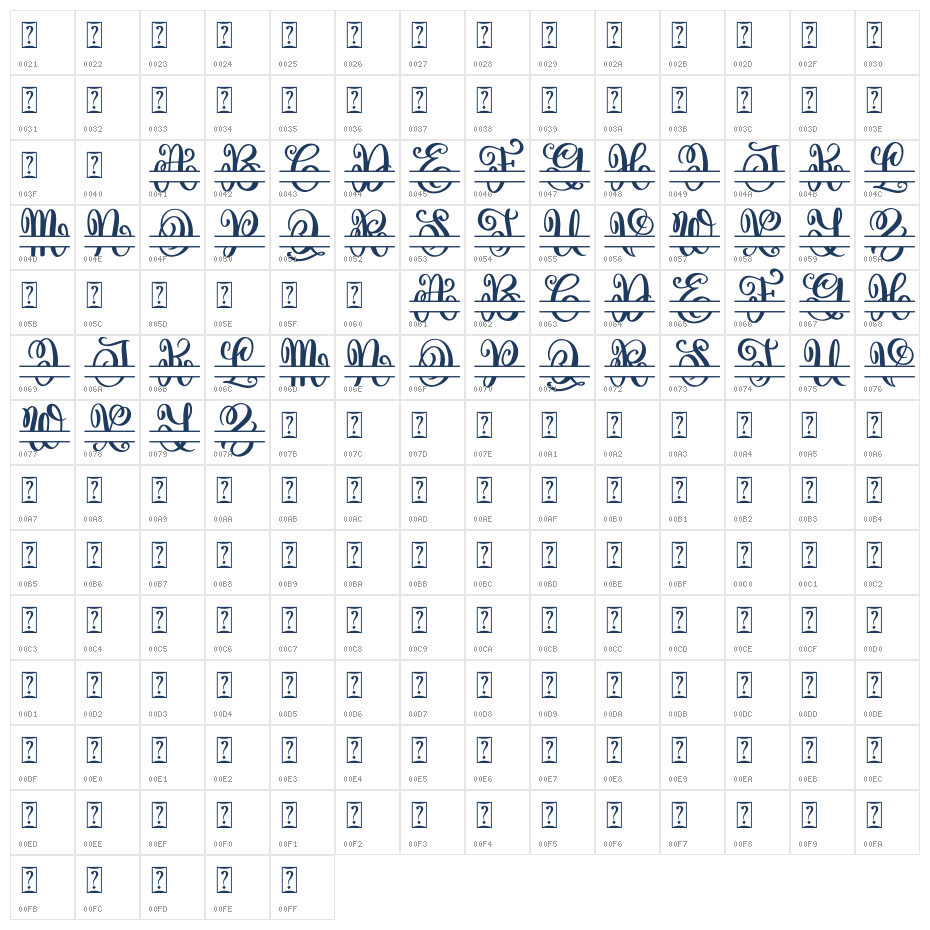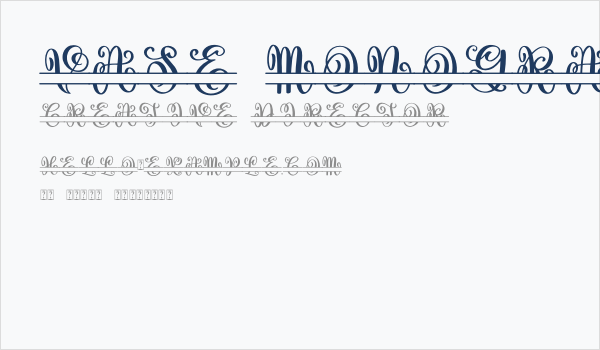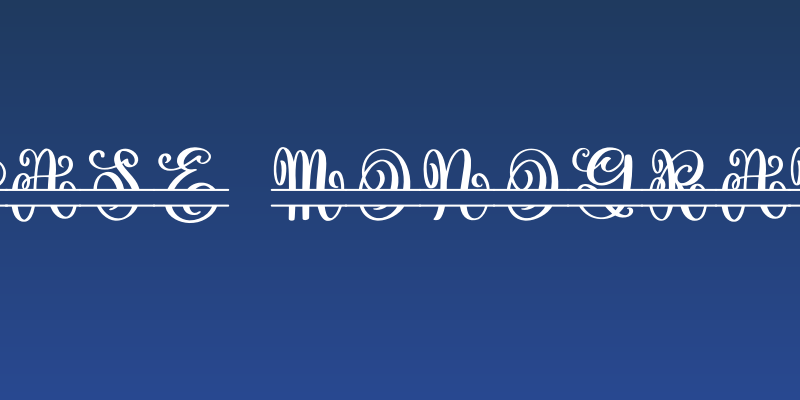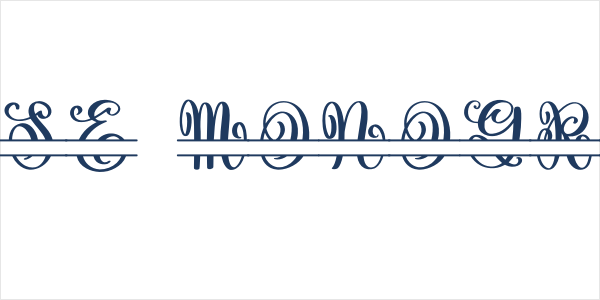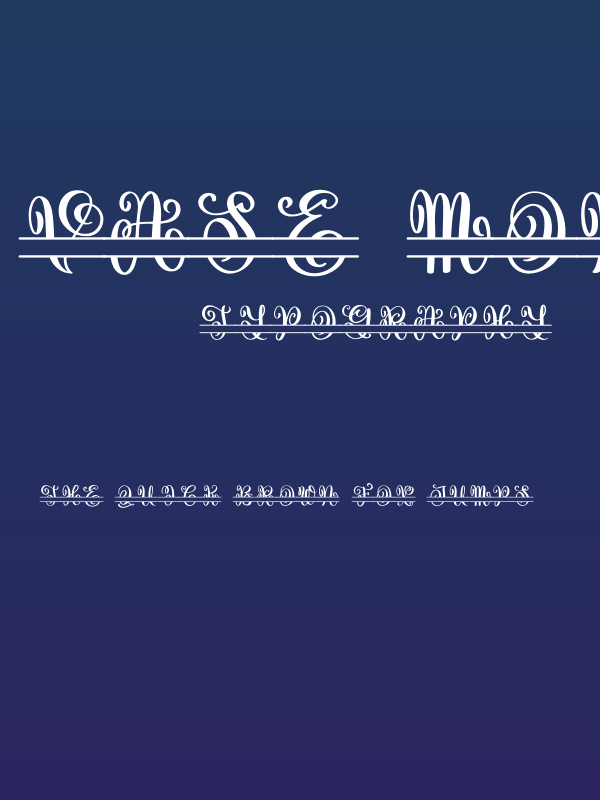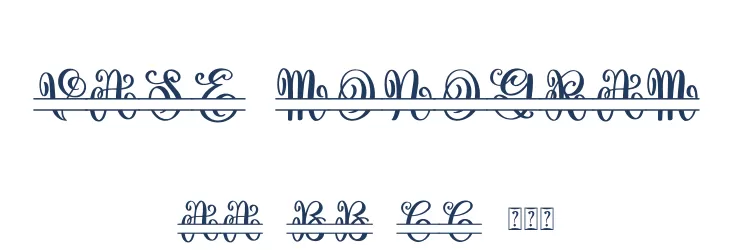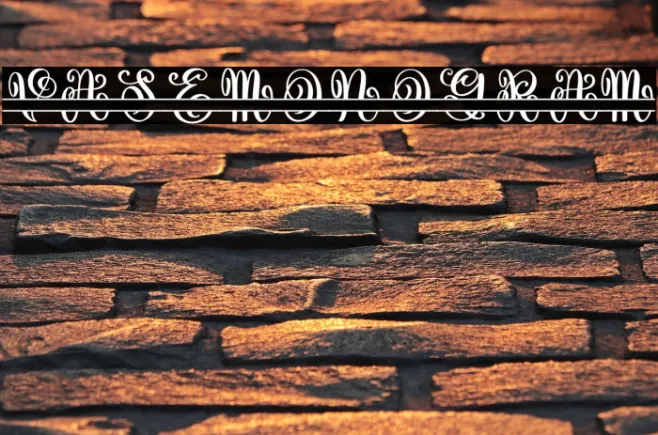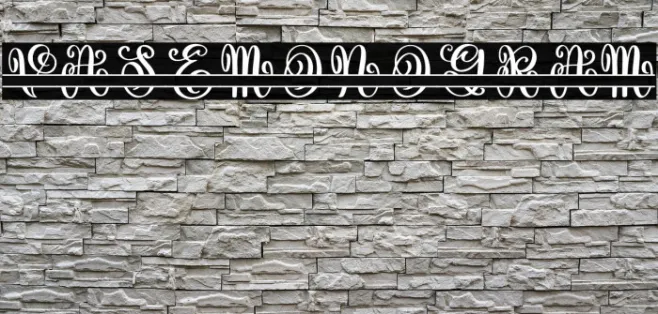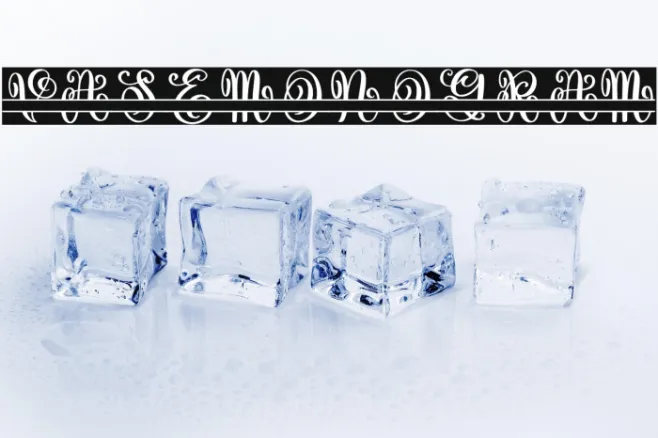
Vase Monogram Font
Vase Monogram Description
A decorative, cursive script font with elaborate swirls and flourishes, featuring both uppercase and lowercase letters, as well as numerals and punctuation.
VASE-MONOGRAM UPPERCASE
VASE-MONOGRAM LOWERCASE
VASE-MONOGRAM OTHER CHARS
| Overall Style | Decorative, Vintage, Elegant |
| Use Case | Headlines, Invitations, Logos, Decorative Text |